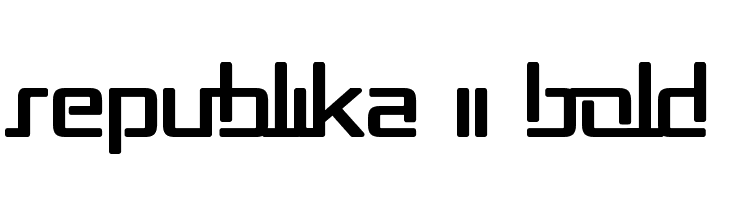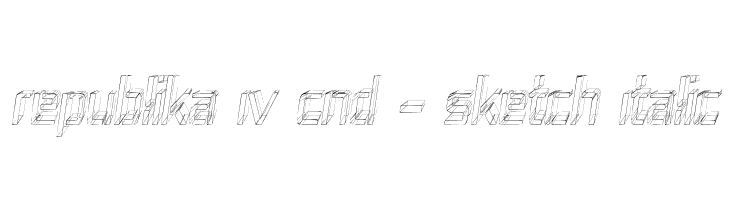
A 3D sketch-style italic font with a dynamic and artistic look.
A sketch-style, condensed italic font with a 3D outline effect.
A bold, sketch-like font with a three-dimensional, futuristic design.
A sketch-style, 3D geometric font with a modern, artistic flair.
A sketch-style, 3D italic font with a dynamic and artistic appearance.
A sketch-style, condensed italic font with a hand-drawn effect.
A sketch-style italic font with a three-dimensional, hand-drawn effect.
A bold, geometric font with a modern, futuristic style.
A bold, geometric font with a modern and futuristic style.
A bold, italicized font with a futuristic and dynamic style.